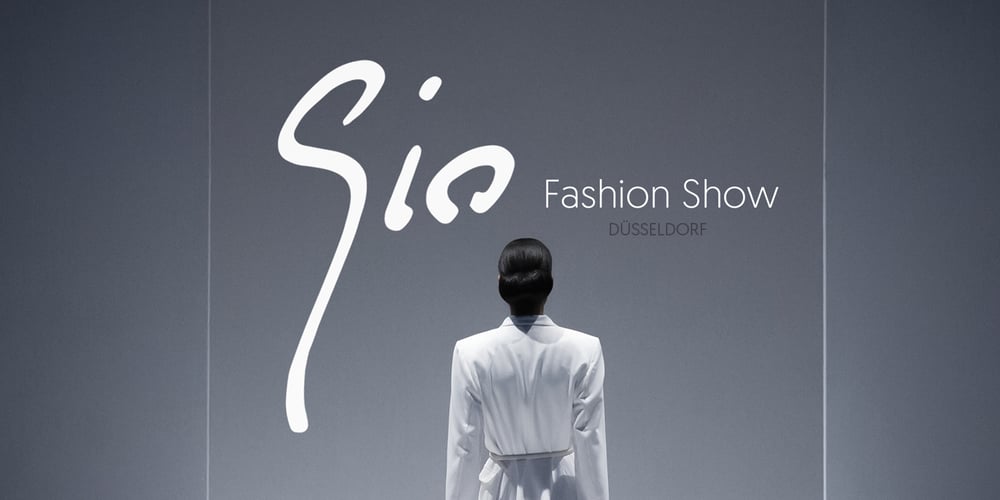
Larab Noire Font Family was designed by Hakan Özsoy and published by Hakân Özsoy. Larab Noire contains 1 styles and family package options. L´arab noire. A unique handwritten font with a strong character. Elegant, quickly curved descenders combined with varying line widths. A unique handwritten font with a strong character. Perfecty suited for creative translucent implementations in ink style, branding projects, product designs, packaging signatures – or just as a stylish text overlay to any background image.